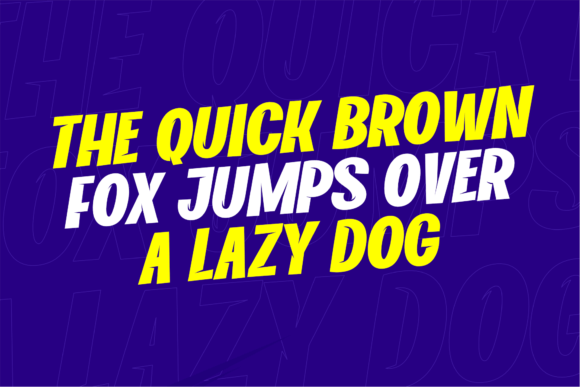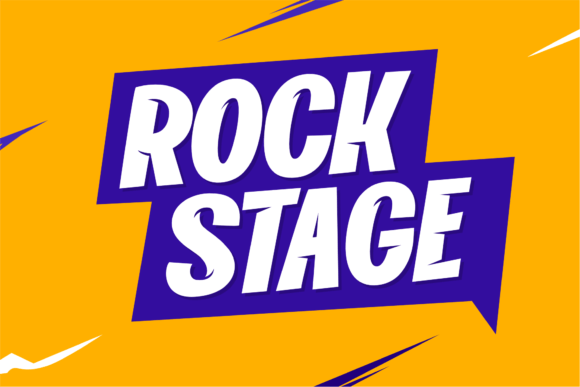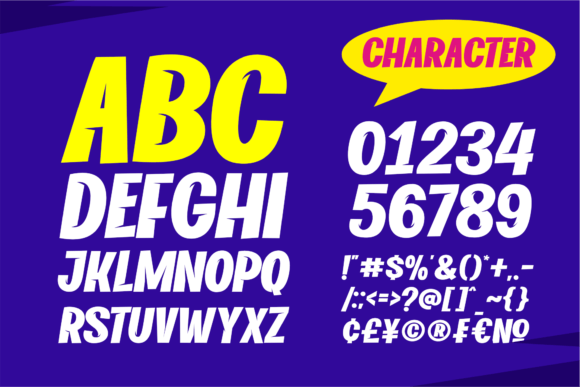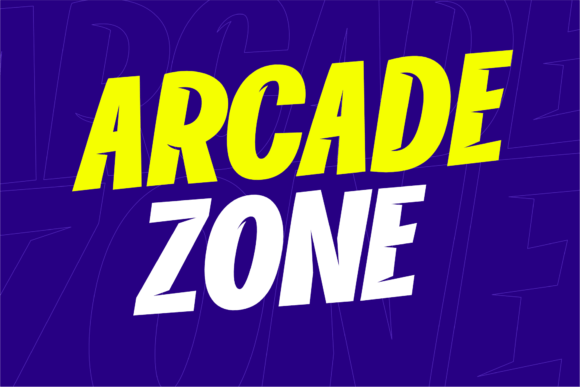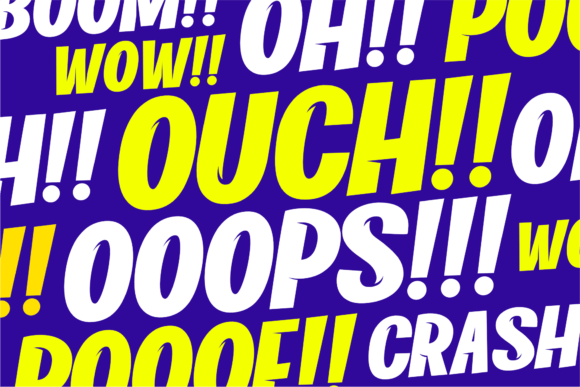
Introduction to Komika Legends Font
Have you ever stared at a blank page, waiting for the perfect font to spark your creativity? That’s exactly what happened to me last week when I was working on a new design project. I was searching for the perfect title font, and that’s when I stumbled upon the Komika Legends Font – a game-changer for any creative project.
This cool and fun display font is a must-have in any designer’s library. With its dramatic emphasis, it adds a touch of sophistication to any design, making it perfect for titles, headings, or any words that need a little extra flair. Whether you’re working on a personal project or a commercial design, the Komika Legends Font is sure to be a valuable asset.
Key Features of Komika Legends Font
- High-quality font design, ideal for creative projects that require a unique and eye-catching look.
- Transparent background support, allowing for easy layering and composition in creative projects.
- Designed with a bold and playful style, making it perfect for use in logos, graphics, and other visual elements.
- Legible at various scales, from small text to large headings, making it a great choice for a wide range of creative projects.
Honest Review: Komika Legends Font
Upon closer inspection, I found that the font features a high quality, bold, and playful style that’s perfect for adding a touch of personality to any design. The transparent background allows for seamless integration with various design elements, making it an excellent addition to my design arsenal.
- High-quality design with a bold, playful style
- Limited character set, which may not be suitable for extended text blocks
- No bold or italic variations, which can limit design versatility
Overall, I’m impressed with the Komika Legends Font’s unique style and high quality design. While it may have some limitations, it’s an excellent addition to any designer’s toolkit, especially for creative projects that require a bold and playful touch. ✨
The Komika Legends Font is commonly used in creative projects such as logos, posters, and social media graphics. Its high-quality design makes it an ideal choice for designers looking to add a touch of elegance and sophistication to their work.